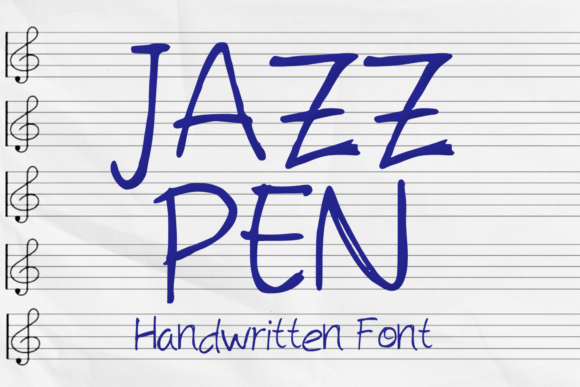
Step into the world of Jazz Pen Font, a captivating display font that will make your designs dance with joy! This enchanting handwritten font is a creation of MVMET, designed to infuse your projects with a touch of playfulness and personality. From regular typing notes to vibrant t-shirts, Jazz Pen Font adds a dash of whimsy to every letter, making it the perfect choice for kids' book designs, greeting cards, eye-catching posters, and anything that needs a sprinkle of fun.
Unleash your creativity and embrace the boundless possibilities of Jazz Pen Font. Its versatile nature allows you to effortlessly transform ordinary words into extraordinary works of art. Whether you're a seasoned designer or just starting your creative journey, Jazz Pen Font is the ultimate tool to bring your ideas to life.
Immerse yourself in the beauty of Jazz Pen Font and experience the magic it brings to your designs. Its playful style and captivating charm will leave a lasting impression on your audience, making your projects stand out from the crowd. Prepare to be captivated by its enchanting aura and fall head over heels in love with its incredible style.
Unlock the limitless potential of Jazz Pen Font today and embark on a creative adventure like never before. Let your imagination soar, let your creativity flow, and let Jazz Pen Font guide you towards designing masterpieces that will leave your audience spellbound. The possibilities are endless, and the journey begins now!